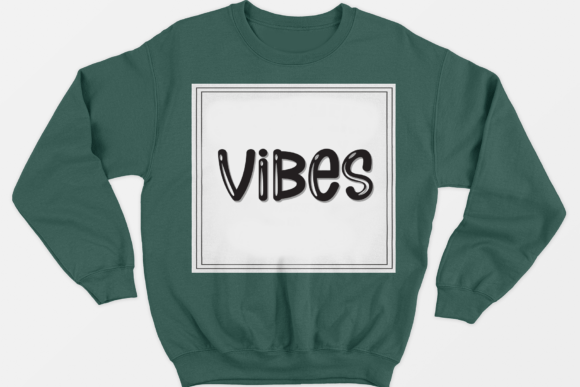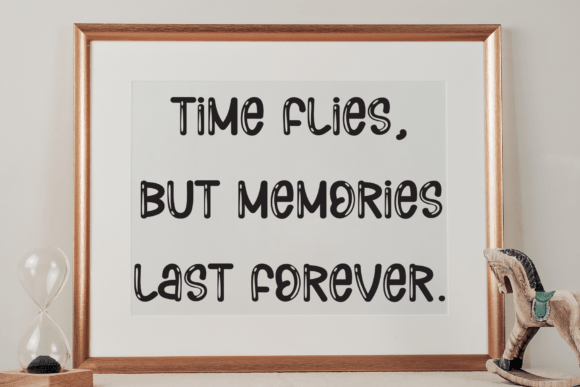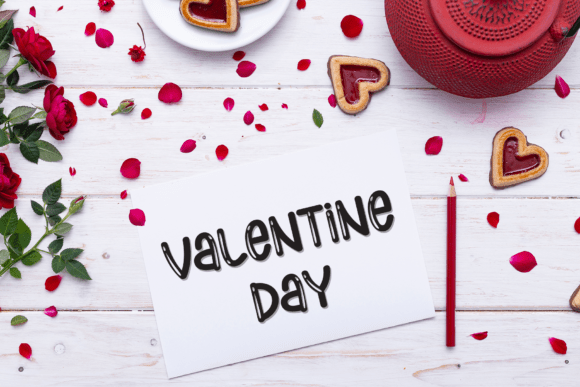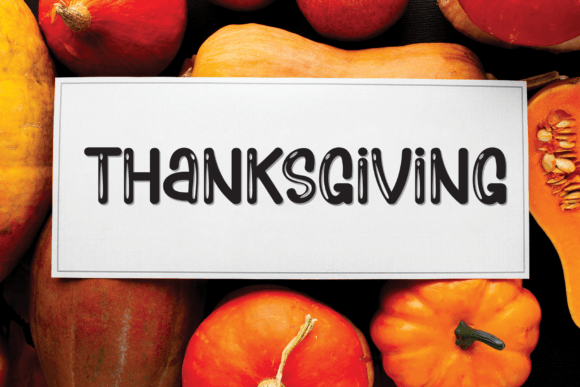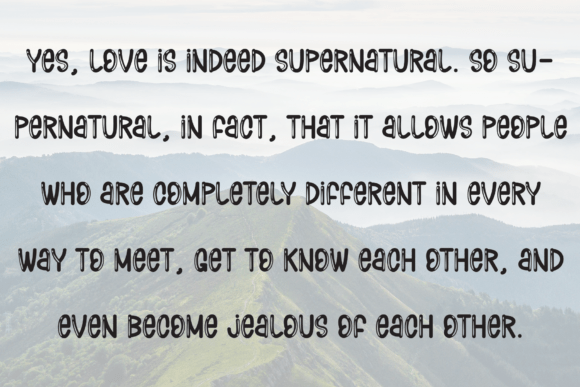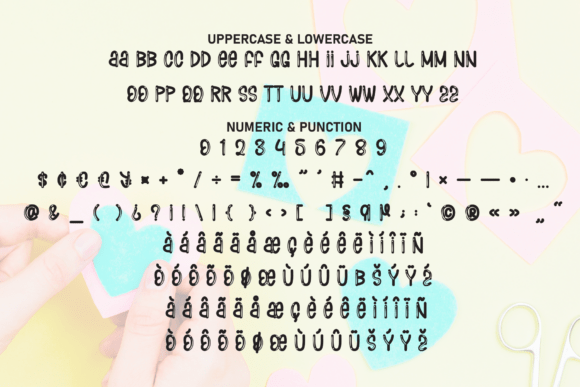
Cute Handmade Font: The Perfect Blend of Modern Simplicity and Playful Charm
In the world of typography, a font can make or break a design. When it comes to creating a lasting impression, the right font can elevate your project from ordinary to extraordinary. If you’re a designer or crafter looking for a font that embodies a fresh and friendly vibe, look no further than Cute Handmade. This casual display font is the perfect blend of modern simplicity and playful charm, making it an ideal choice for a wide range of design projects.
What is Cute Handmade Font?
Cute Handmade is a carefully crafted display font that combines clean shapes, soft edges, and well-balanced letterforms to create a unique and captivating visual experience. This font is designed to capture the essence of relaxed design while maintaining clarity and style. Whether you’re working on a poster, branding project, packaging design, or social media graphics, Cute Handmade is the perfect choice for adding a touch of personality and whimsy to your work.
Key Features of Cute Handmade Font
So, what makes Cute Handmade font so special? Here are some of its key features:
- Clean Shapes: Cute Handmade features clean and simple shapes that give it a modern and fresh look.
- Soft Edges: The soft edges of the font add a touch of warmth and approachability, making it perfect for designs that require a friendly vibe.
- Well-Balanced Letterforms: The font’s well-balanced letterforms ensure that it remains clear and readable, even at larger sizes.
- Versatile Character: Cute Handmade has a versatile character that makes it suitable for a wide range of design projects, from posters and branding to packaging and social media graphics.
- Eye-Catching Appeal: The font’s unique blend of modern simplicity and playful charm makes it a standout choice for designers looking to create eye-catching designs.
Use Cases for Cute Handmade Font
Cute Handmade is a versatile font that can be used in a variety of design projects. Here are some use cases where this font truly shines:
- Posters: Add a touch of personality to your posters with Cute Handmade. Its clean shapes and soft edges make it perfect for creating eye-catching headlines and titles.
- Branding: Use Cute Handmade to create a friendly and approachable brand identity. Its versatile character makes it suitable for a wide range of industries, from fashion and beauty to food and beverage.
- Packaging: Add a touch of whimsy to your packaging designs with Cute Handmade. Its playful charm makes it perfect for product labels, packaging inserts, and more.
- Social Media Graphics: Use Cute Handmade to create engaging social media graphics that stand out from the crowd. Its clean shapes and soft edges make it perfect for creating eye-catching headlines and titles.
Why Choose Cute Handmade Font?
With so many fonts to choose from, why should you choose Cute Handmade? Here are just a few reasons:
- Unique Blend of Modern Simplicity and Playful Charm: Cute Handmade offers a unique blend of modern simplicity and playful charm that sets it apart from other fonts.
- Readability and Personality: This font delivers both readability and personality, making it perfect for designs that require a touch of whimsy and friendliness.
- Versatility: Cute Handmade is a versatile font that can be used in a wide range of design projects, making it a great addition to any designer’s toolkit.
In conclusion, Cute Handmade is a casual display font that offers a unique blend of modern simplicity and playful charm. Its clean shapes, soft edges, and well-balanced letterforms make it perfect for a wide range of design projects, from posters and branding to packaging and social media graphics. With its versatile character and eye-catching appeal, Cute Handmade is the perfect choice for designers and crafters looking to add a fresh and friendly touch to their designs.